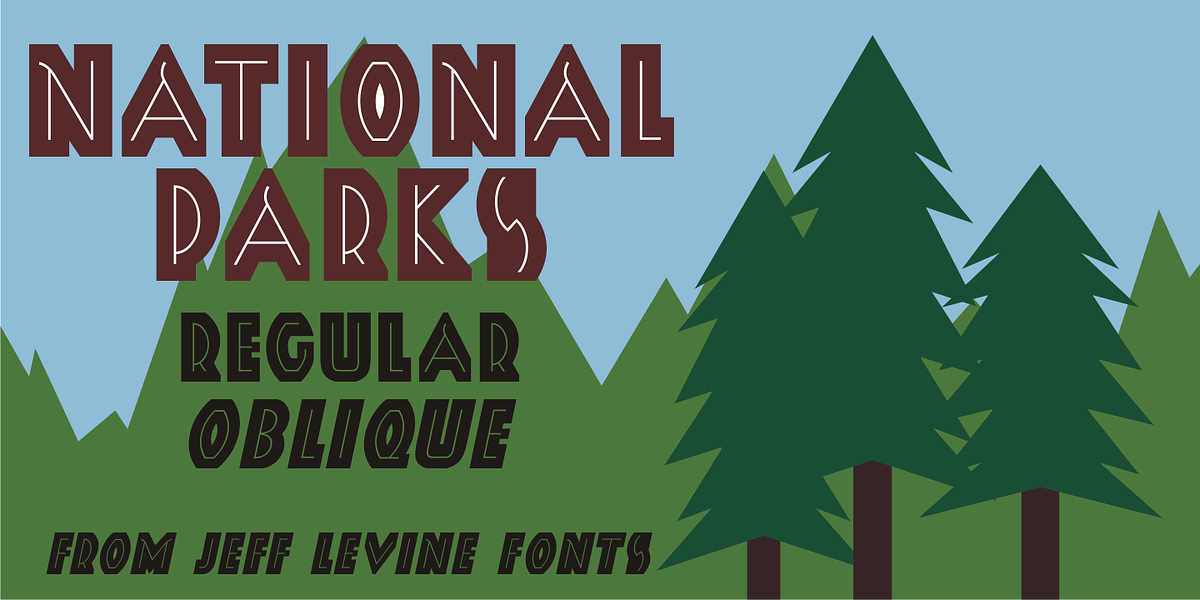
National Parks JNL
National Parks JNL was based on a 1930s WPA (Works Progress Administration) poster where the word “National Parks” was hand-lettered in an unusual and eclectic Art Deco style.
Bold and non-conformist, the typeface is available in both regular and oblique versions.